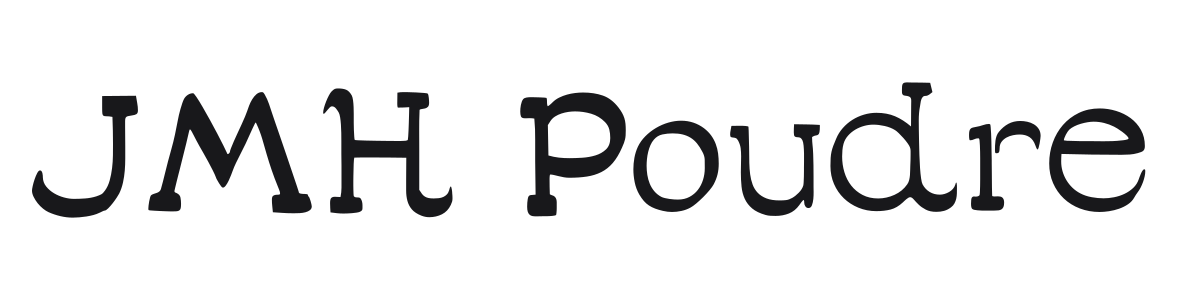
JMH Poudre
by Jorge Morón
JMH Poudre is a slab-serif with the imperfect warmth of old typewriter type softened by organic, almost hand-drawn character details. Curled terminals and subtle stroke irregularities give it a handcrafted feel that sits somewhere between vintage print and casual lettering. It brings personality to headlines, packaging, and editorial work without trying too hard.